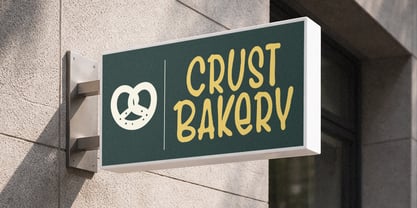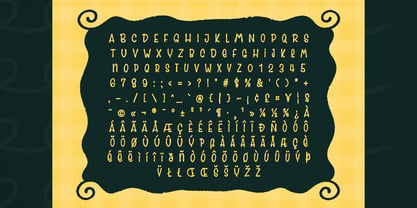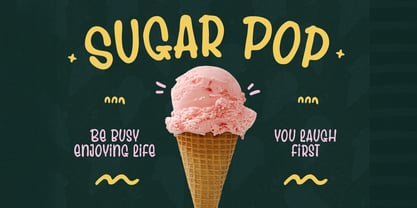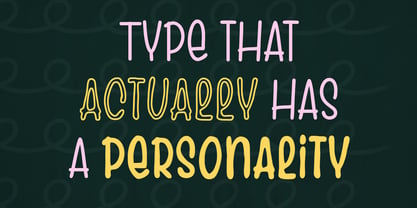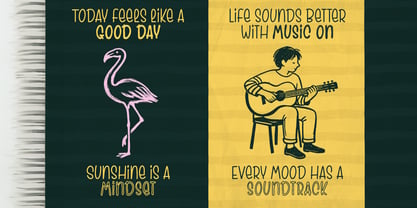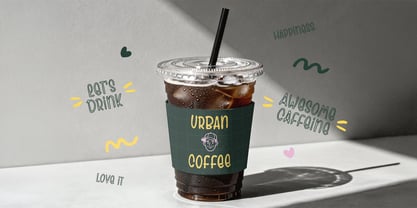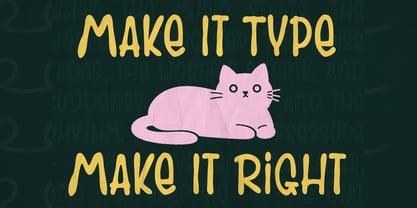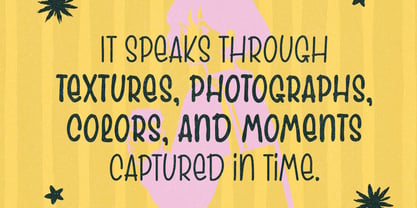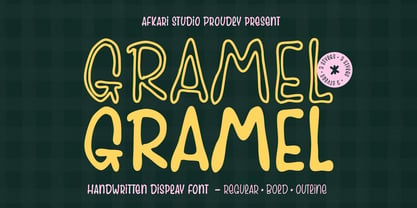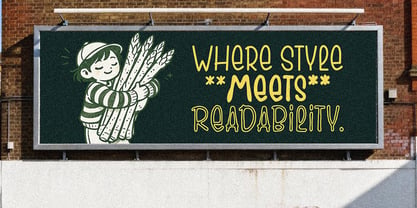
Gramel
by Afkari Studio
The Gramel Font Family was designed by Musthafa Kamal Emje and published by Afkari Studio. Gramel contains 3 styles and family package options. More about this family
Gramel is a stylish handwritten display font designed to bring natural personality and expressive charm into your creative typography. Inspired by casual handwritten lettering, Gramel features smooth strokes, organic curves, and dynamic character shapes that create an authentic handcrafted feel. This font is perfect for designers who want to add a personal, artistic, and eye-catching touch to their visual projects. The font family includes three versatile styles: Regular, Bold, and Outline, allowing you to create layered typography and more creative design combinations. The Regular style delivers a natural handwritten appearance that works beautifully for quotes, branding, and social media graphics. The Bold style adds stronger visual impact, making it ideal for posters, headlines, and logo designs that need extra attention. Meanwhile, the Outline style brings a modern decorative effect, perfect for creative compositions, layered typography, and standout display text. Gramel is carefully crafted to maintain readability while preserving its expressive handwritten character. The balance between casual strokes and structured letterforms makes it suitable for both digital and print designs. Whether you are creating logos, packaging, posters, merchandise, YouTube thumbnails, or stylish branding materials, this handwritten display font adds warmth and personality to your work. This font is ideal for projects that need a handwritten display font, modern handwritten typeface, casual script-style display font, creative branding font, or artistic headline font. It works perfectly for lifestyle brands, craft products, creative studios, social media designs, and trendy marketing materials. Highlighted Features: - Uppercase, Lowercase, Number, and Punctuation - Natural handwritten display style - Works on PC & Mac - Simple installations - Accessible in Adobe Illustrator, Adobe Photoshop, Adobe InDesign, and even work on Microsoft Word - Fully accessible without additional design software. - Mültîlíñgúãl Sùppört for; ä ö ü Ä Ö Ü ß ¿ ¡ Add authentic handwritten energy to your typography with Gramel. This creative handwritten display font helps designers build unique, modern, and memorable visual designs with ease.
Designers: Musthafa Kamal Emje
Foundry: Afkari Studio